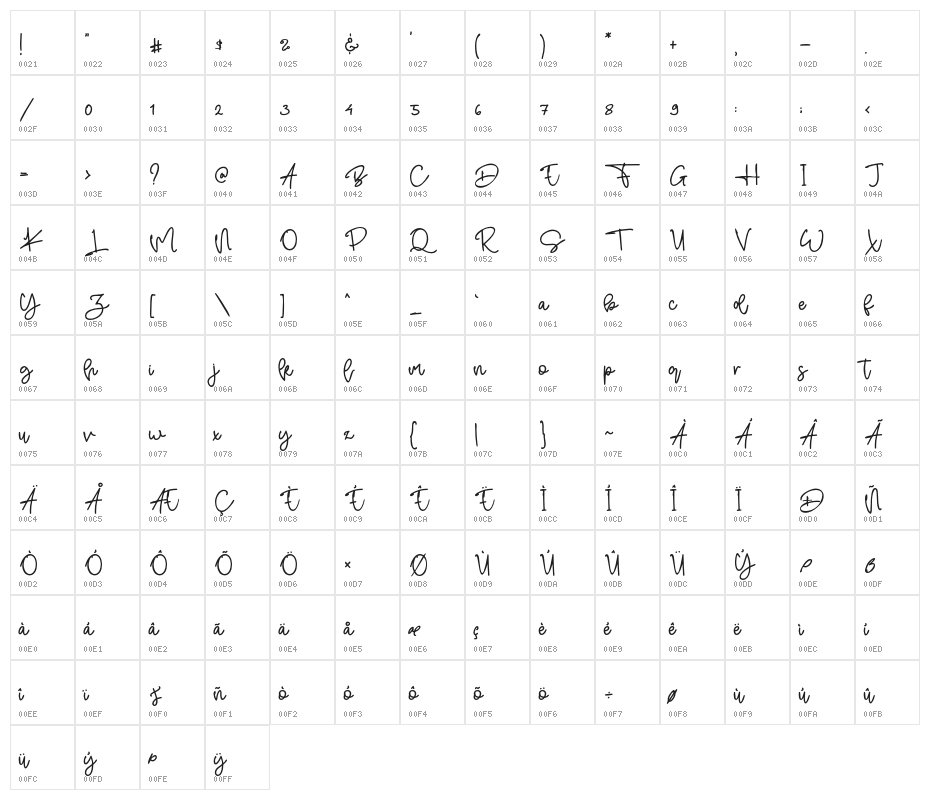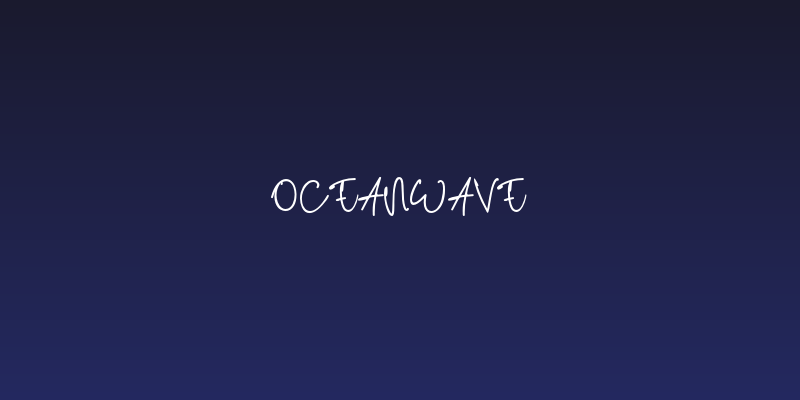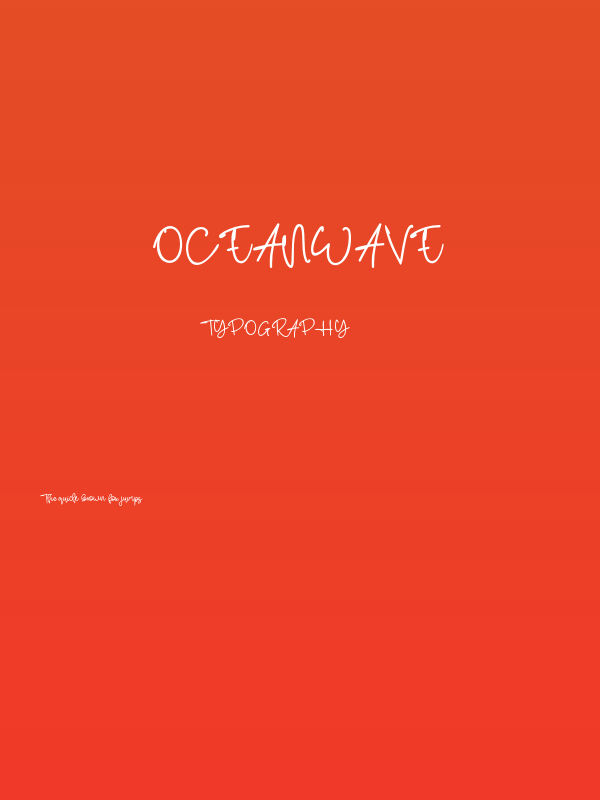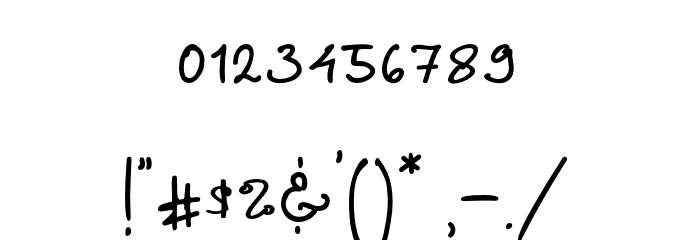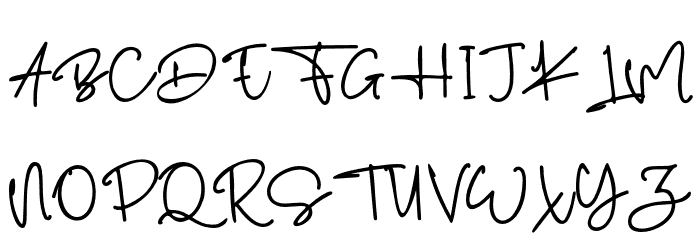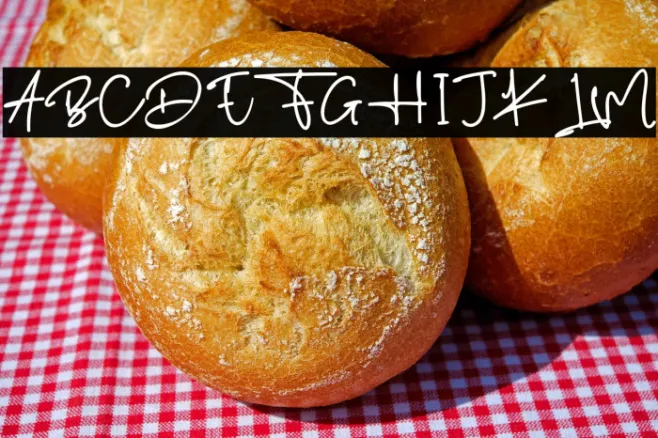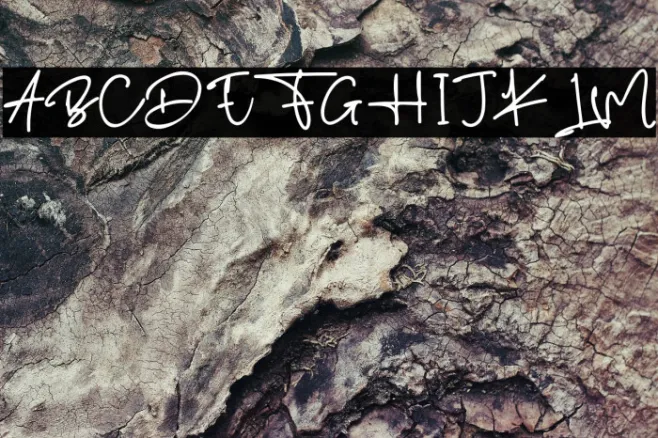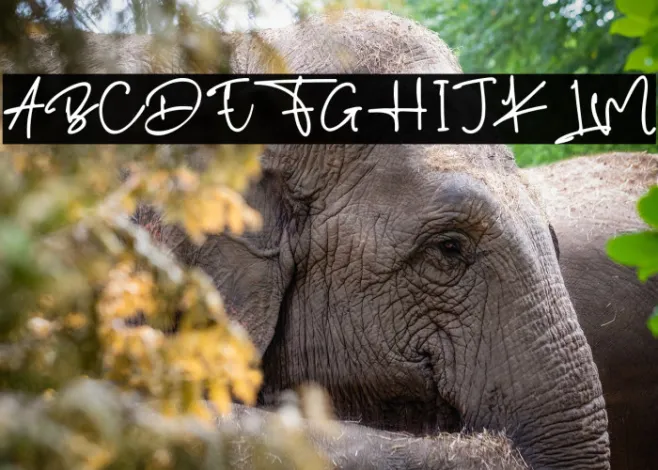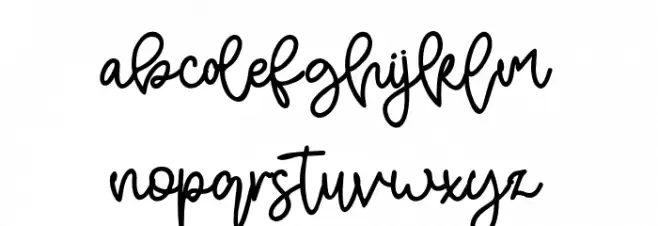
OceanWave Font
OceanWave Description
This font features a playful and flowing script style that mimics the natural movement of waves. The letters are interconnected with smooth curves and loops, giving it a handwritten appearance. The uppercase letters are bold and dynamic, while the lowercase letters maintain a consistent flow, enhancing readability. The numbers and special characters are designed to match the overall aesthetic, with a whimsical touch that adds personality. This font is ideal for projects that require a personal and artistic touch, such as invitations, greeting cards, and creative branding.
| Proposed Projects | Ideal for invitations, greeting cards, creative branding, and artistic projects. |